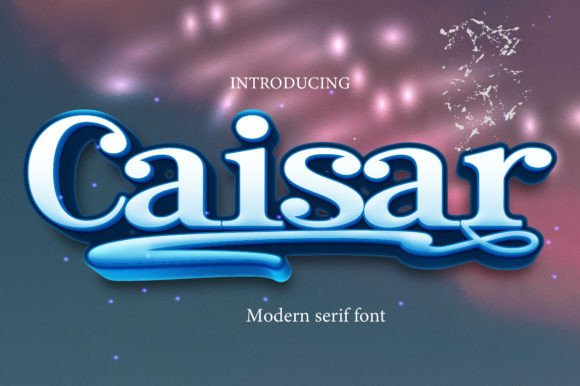
In a world awash with digital monotony, Caisar Font emerges as a beacon of distinction, a font imbued with an aura of elegance and sophistication. This modern serif font, meticulously crafted by the visionary gunaloe12, is a testament to the transformative power of typography.
Caisar Font's captivating curves and intricate details lend an air of timeless charm to any project. Its sweeping ascenders and graceful descenders dance across the page, evoking a sense of effortless beauty. Whether you're a seasoned designer or just starting your creative journey, Caisar Font will elevate your designs, imbuing them with a touch of luxury and refinement.
Unleash your creativity and explore the boundless possibilities of Caisar Font. Its versatility knows no bounds, making it the perfect choice for a myriad of projects. From captivating posters that demand attention to elegant stationery that exudes professionalism, Caisar Font effortlessly adapts, amplifying your message with style and impact.
Immerse yourself in the world of Caisar Font and discover a font that transcends the ordinary. Its timeless beauty and modern flair will transform your designs, captivating audiences and leaving a lasting impression. Make a statement, not just with words, but with the very font that carries them. Embrace Caisar Font today and elevate your designs to new heights of sophistication.